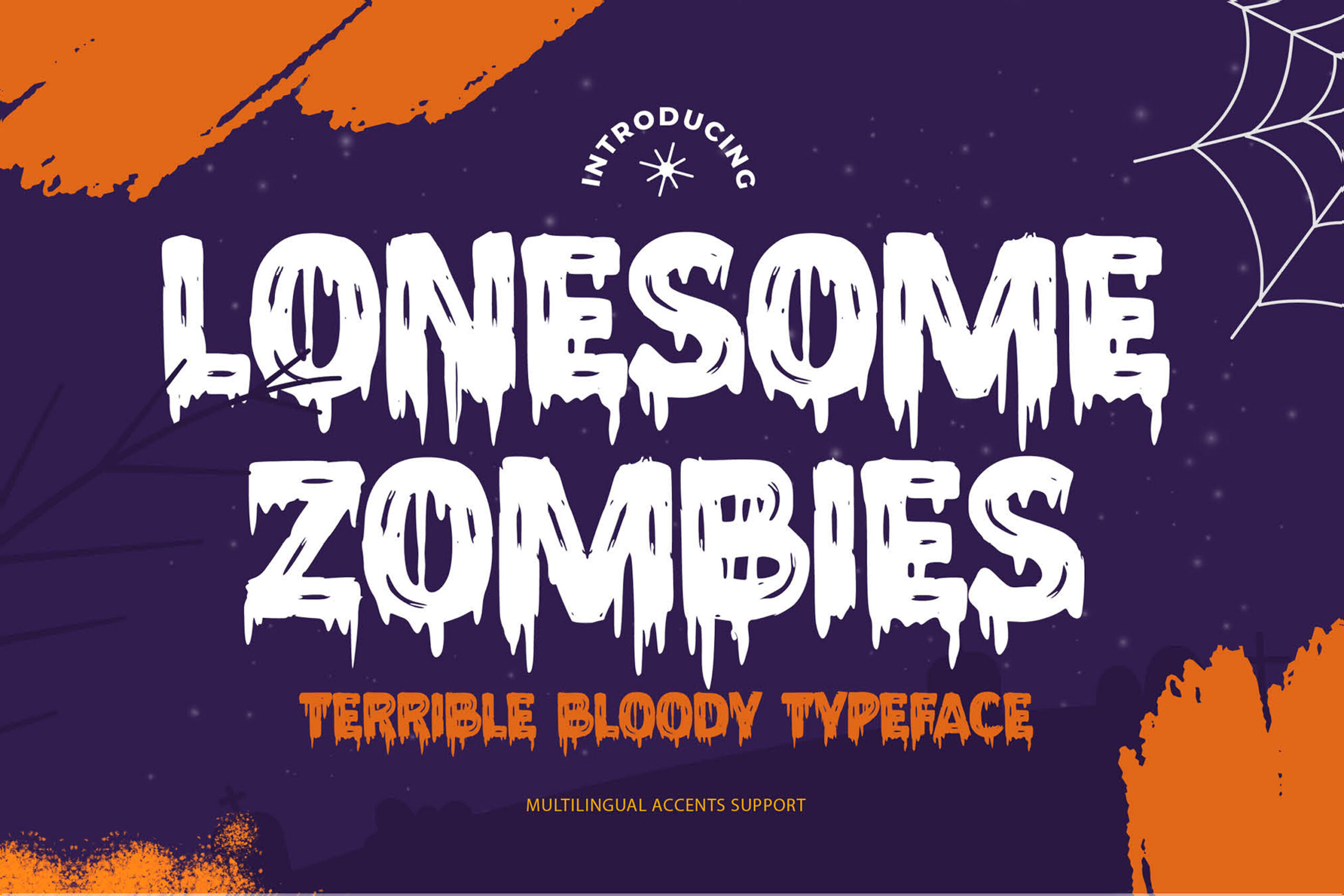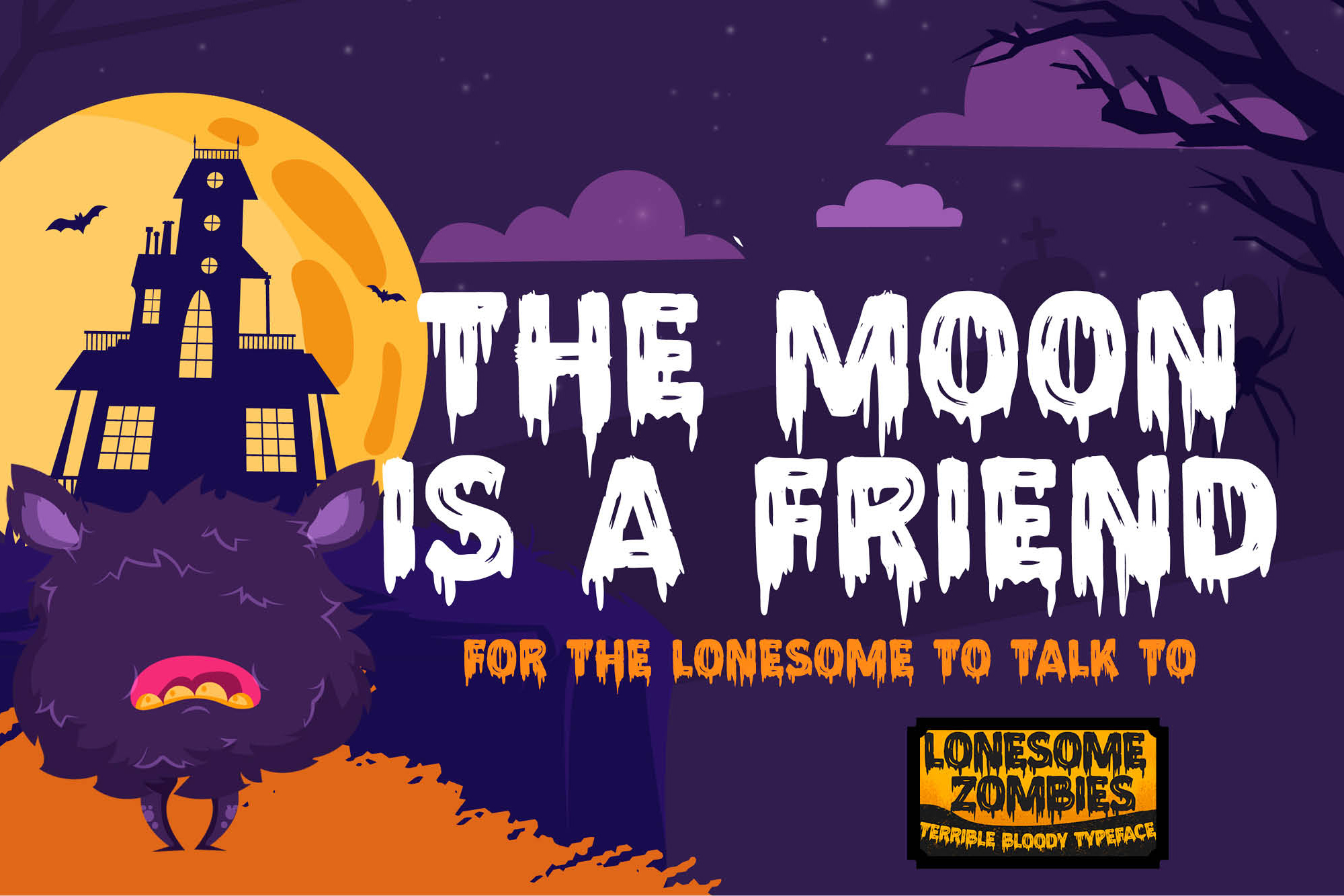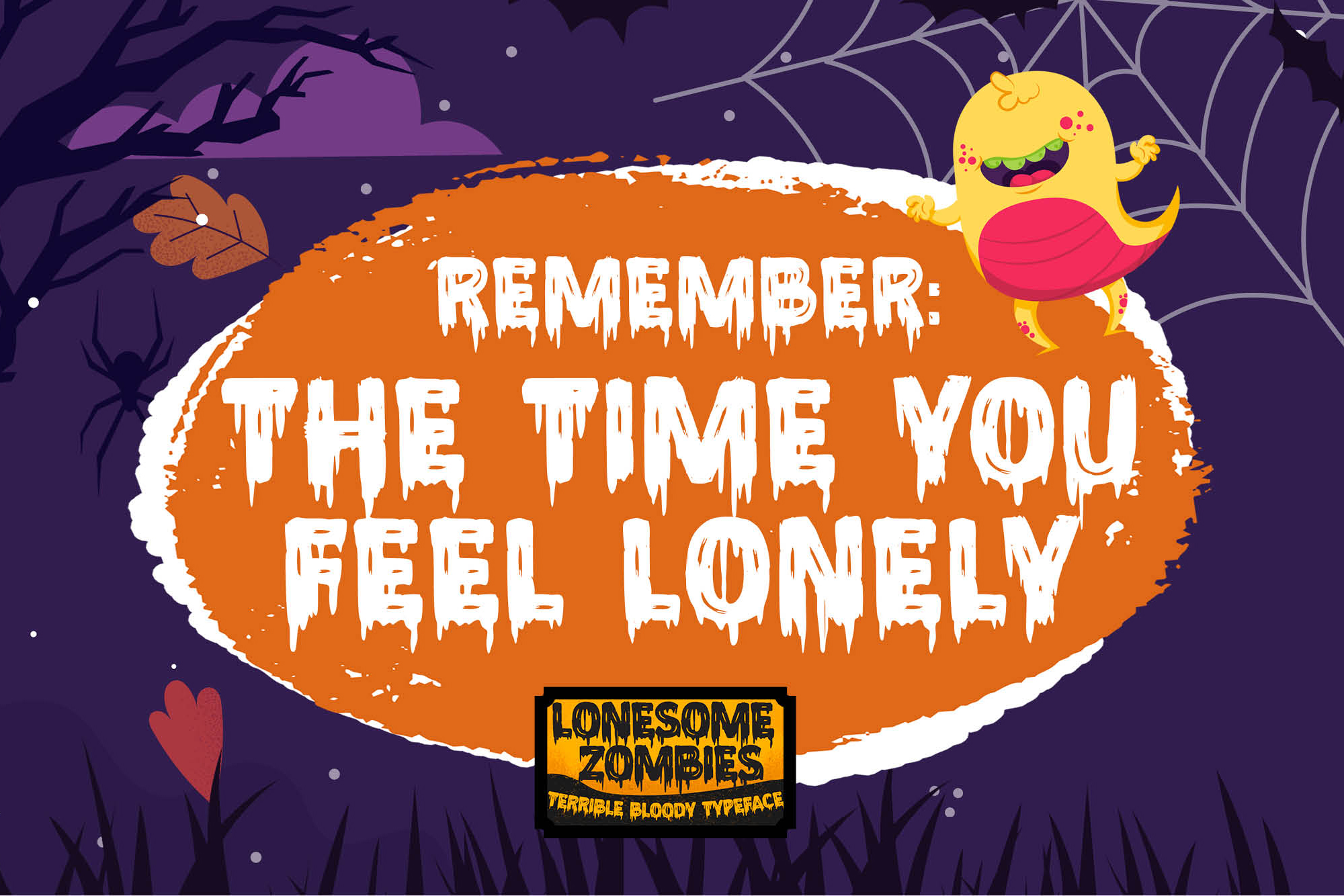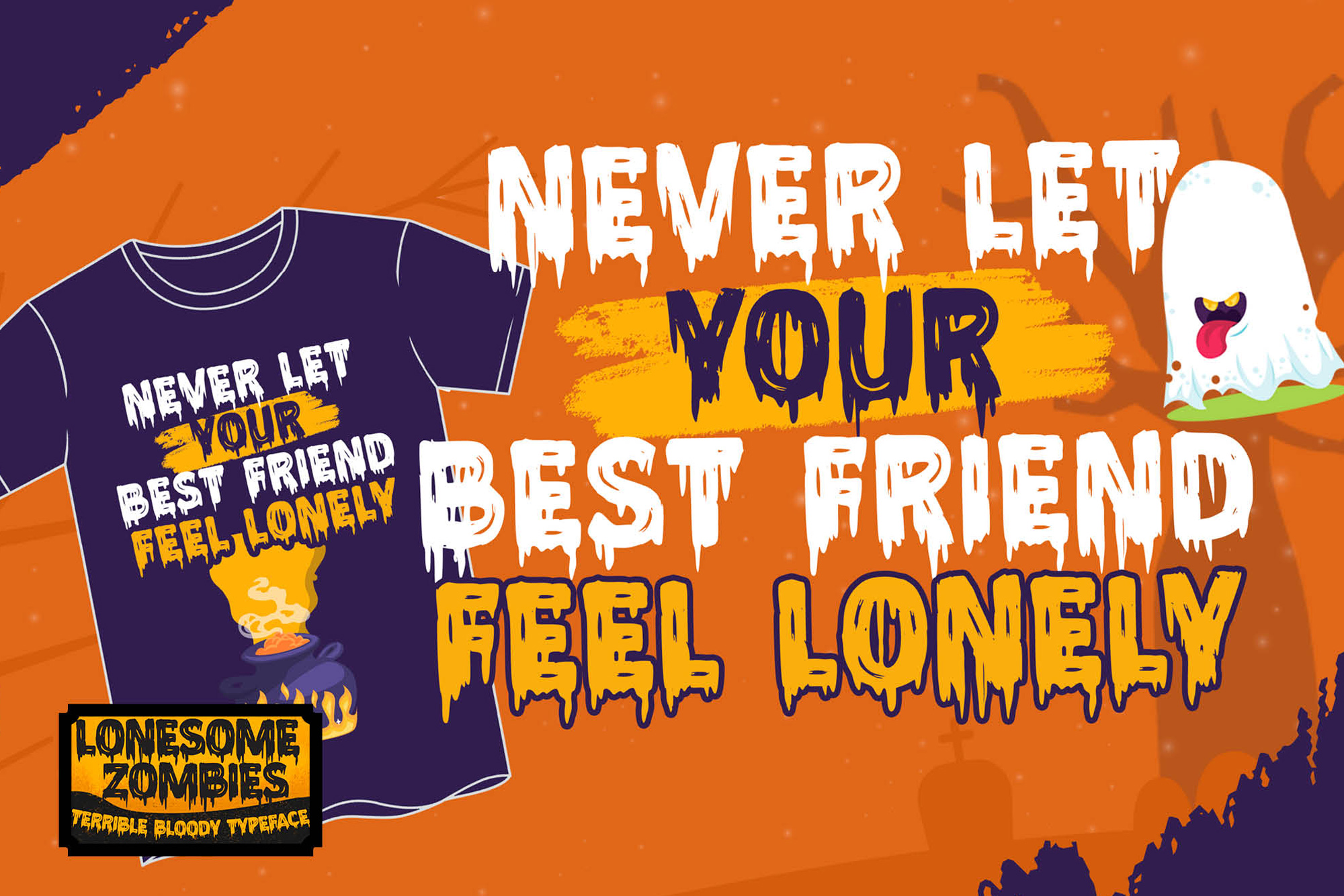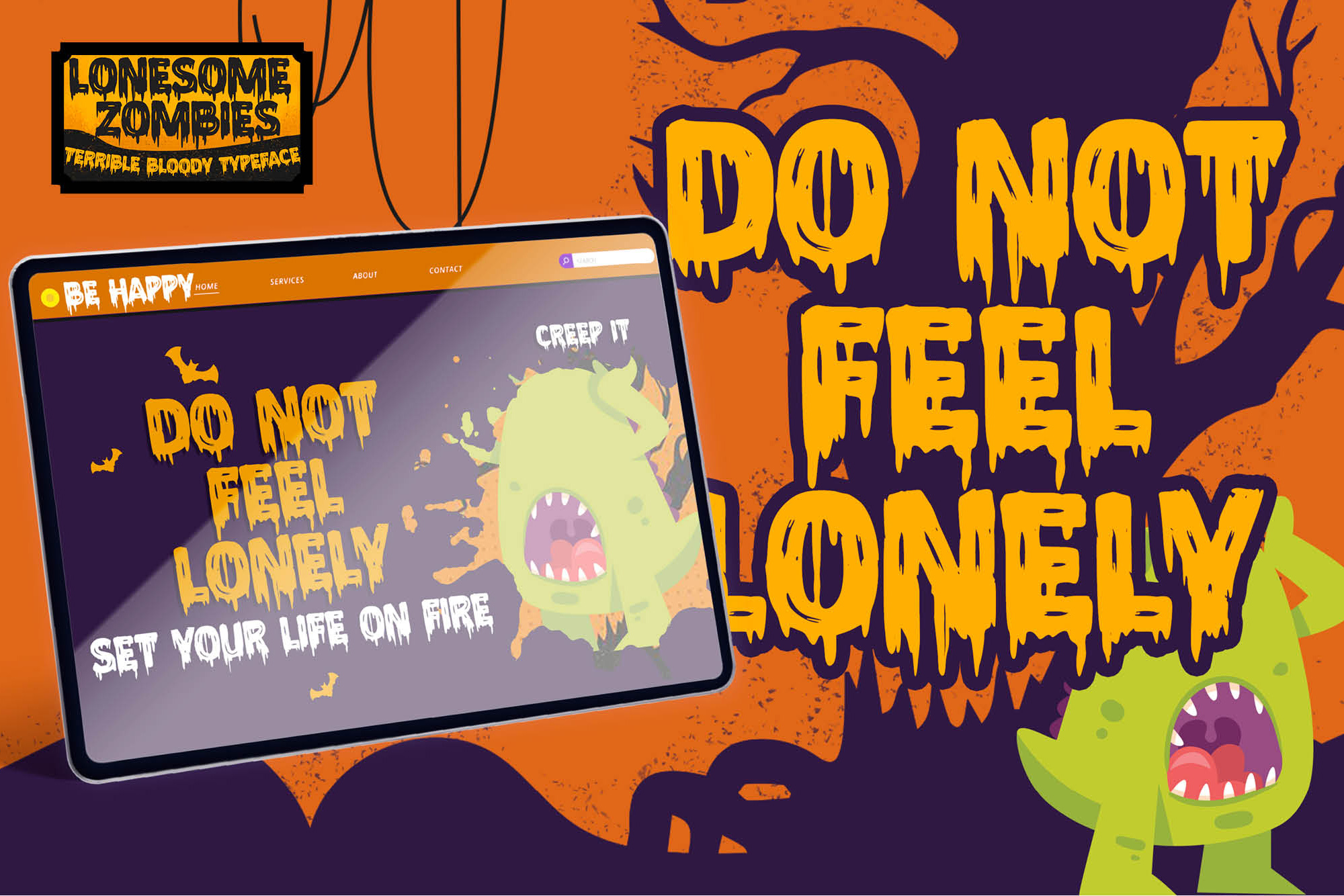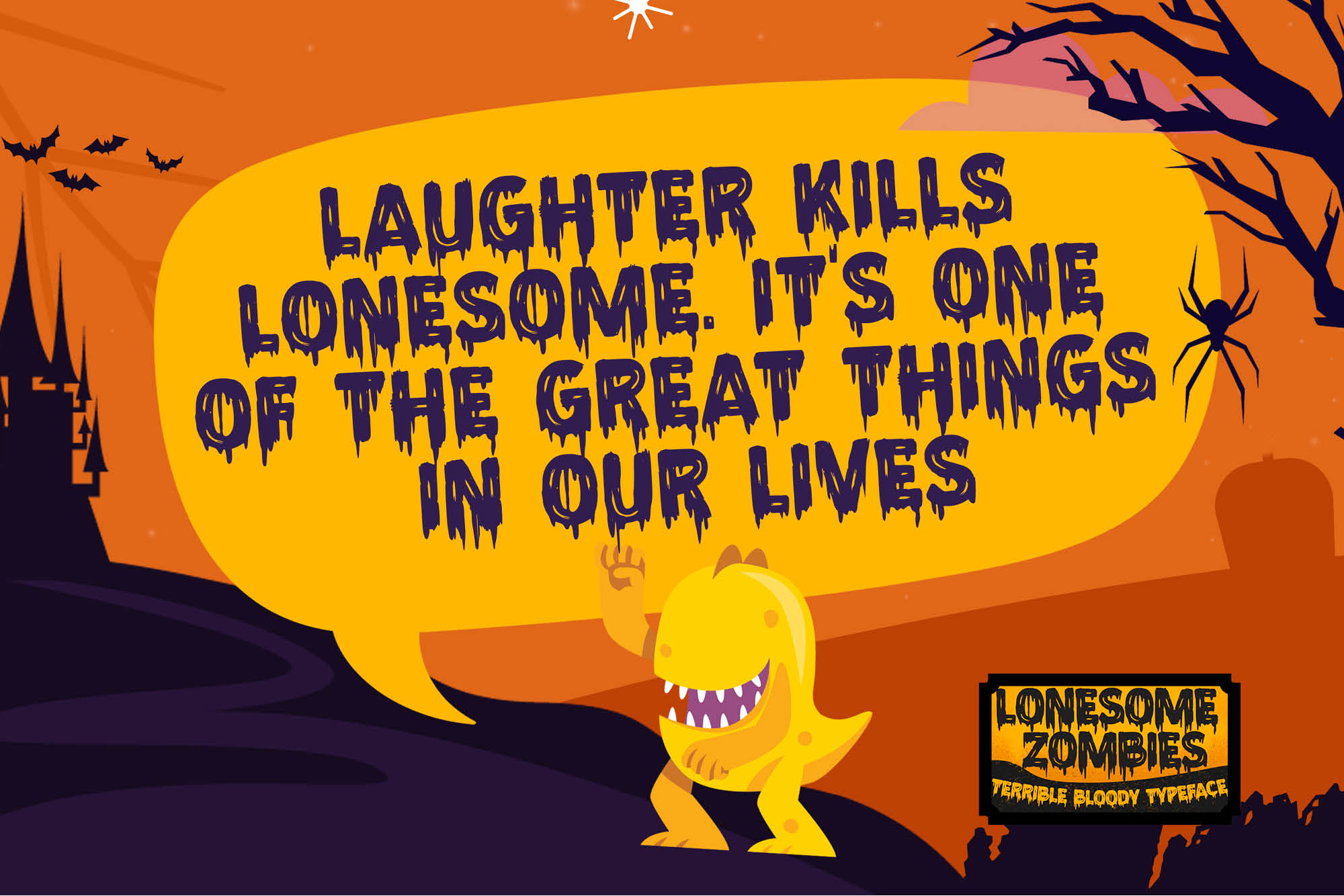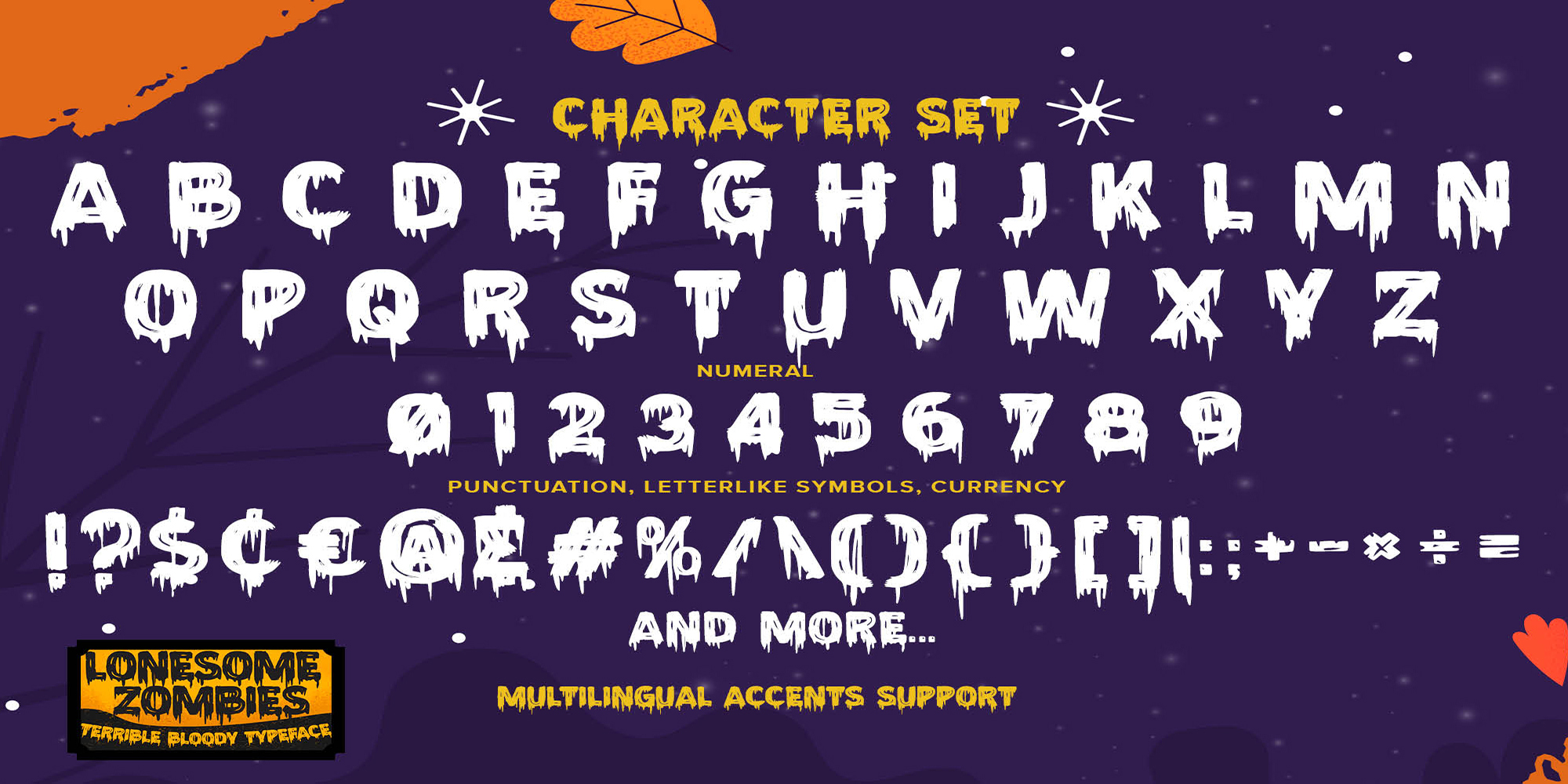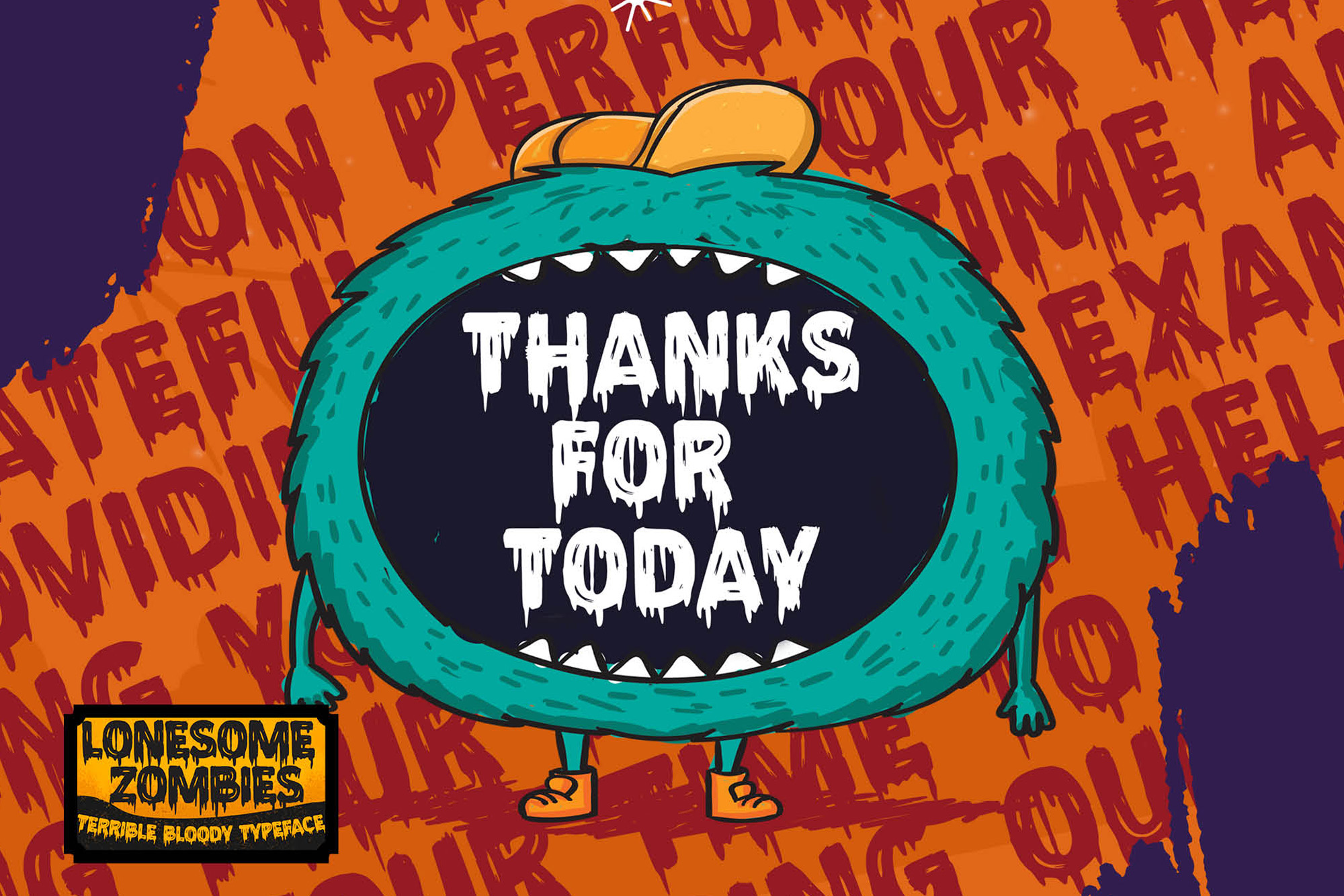
Lonesome Zombies – Terrible Bloody Typeface is an strong display Font that is written casually and quickly.
That is why Lonesome Zombies has a cool, and horror characteristic more natural look. Lonesome Zombies Perfect for designs, branding projects, Logo design,Quotes product packaging and another Project that require mystery font.